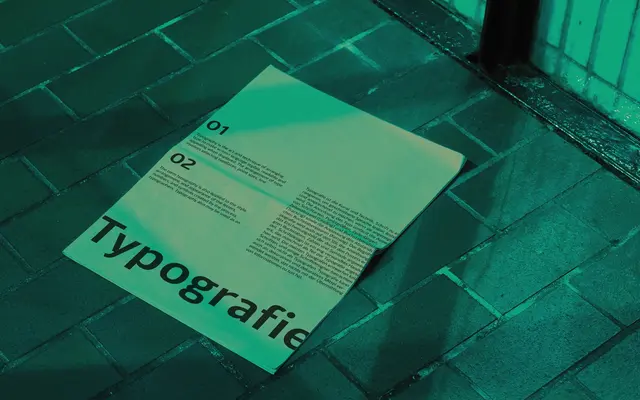
A twelve-font sans-serif blending humanist warmth, grotesque structure and a touch of geometry, with six weights and matching italics.
Kylo Sans draws from three stylistic traditions, humanist, grotesque and geometric, to produce a typeface with restrained personality suited to extended text. Six weights run from Thin to Black with matching italics, and over 700 characters cover Western, Southern and Central European languages. Version 2.0 brought improved OpenType features including six numeral variants, small caps, ligatures and alternates for Q, a, g, l and y.
Described by the foundry as a blend of humanist, grotesque and geometric influences; the humanist-grotesque hybrid subcategory best captures its primary character, with geometric elements playing a minor role.